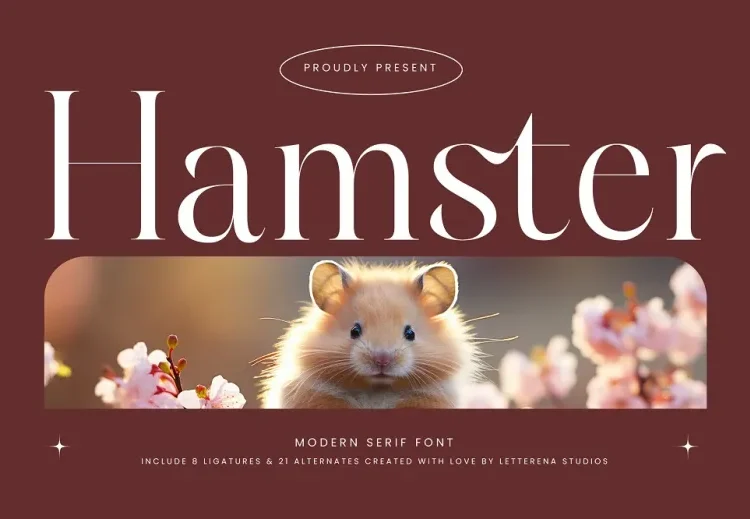
Hamster Font
Hamster is a modern serif font that exudes elegance and sophistication, making it an excellent choice for a wide array of design projects. This font’s clean lines and refined details bring a touch of luxury to any creation, ensuring that your designs stand out with a polished, high-end look.
Ideal for both personal and professional projects, Hamster seamlessly fits into a variety of applications. Whether you’re working on logos, branding, or home and living designs, this font adds a sophisticated edge that enhances the overall aesthetic.
Its versatility shines in product packaging, mugs, and quotes, where it provides a stylish and modern feel. Hamster is also perfect for posters, shopping bags, and t-shirts, where its elegant style can truly make an impact. Additionally, it excels in more formal uses, such as book covers, name cards, invitation cards, and greeting cards, where its luxurious serif design lends a timeless appeal.
The font’s adaptability extends to labels and other elegant projects, making it an indispensable tool for any designer looking to infuse their work with a touch of class.